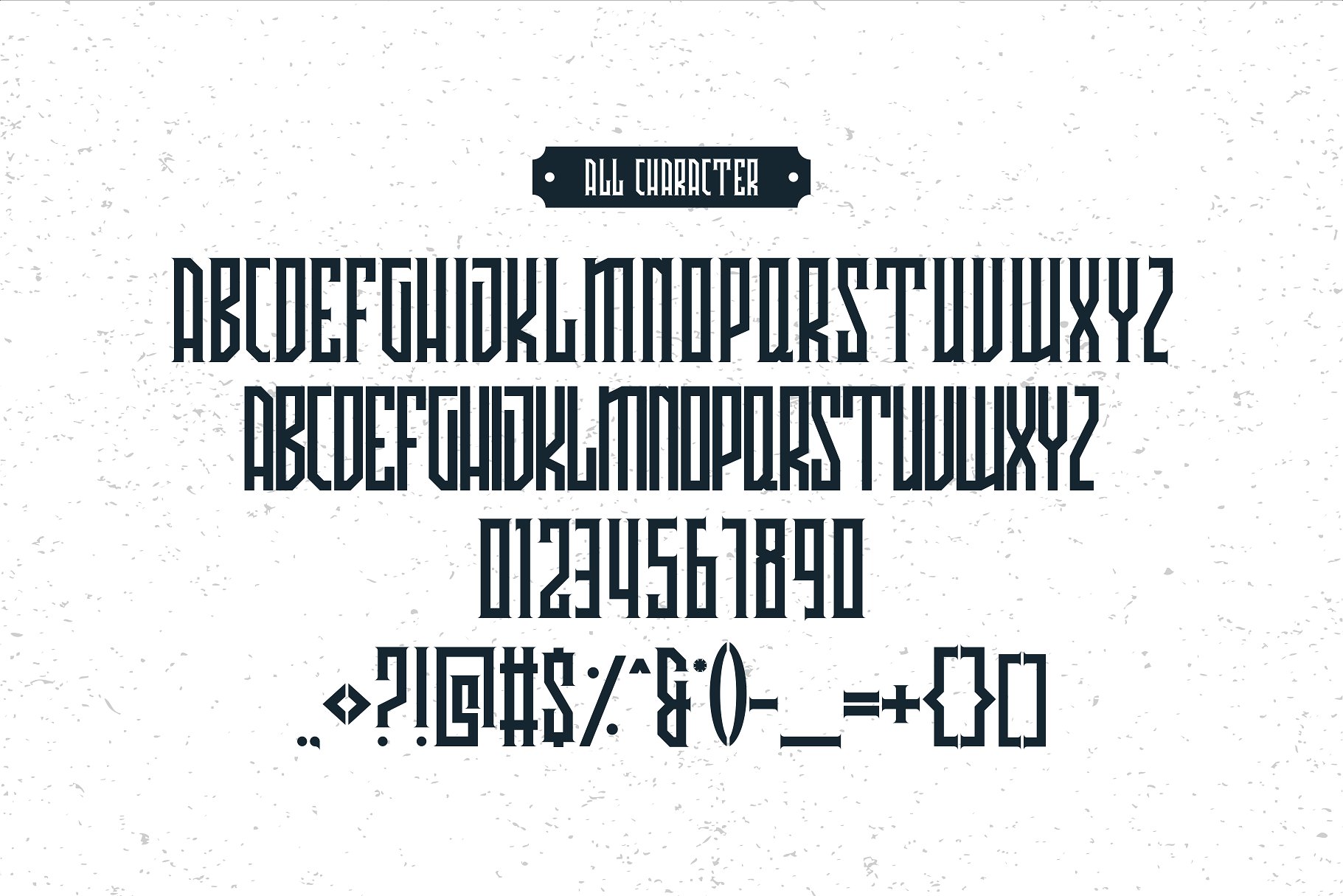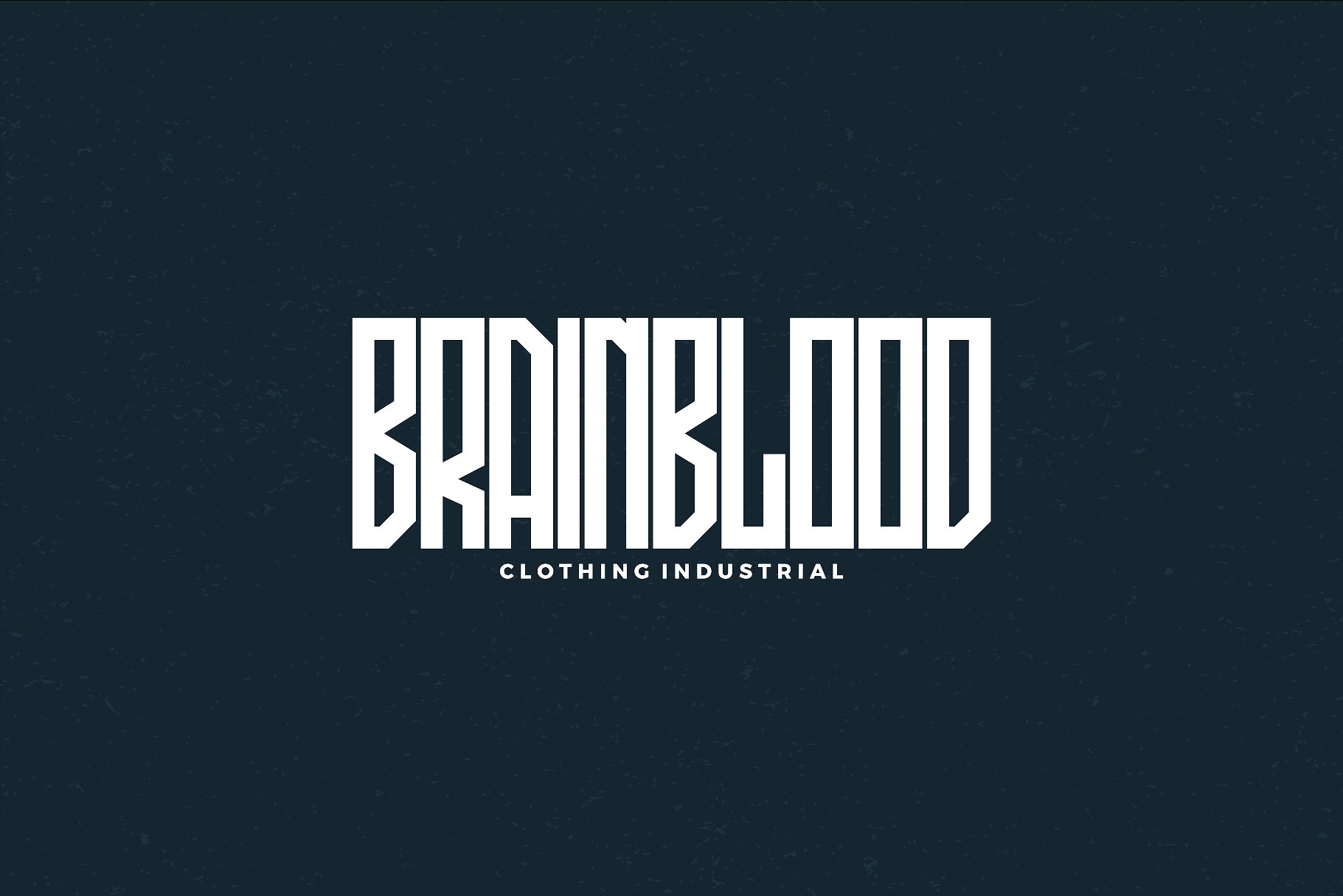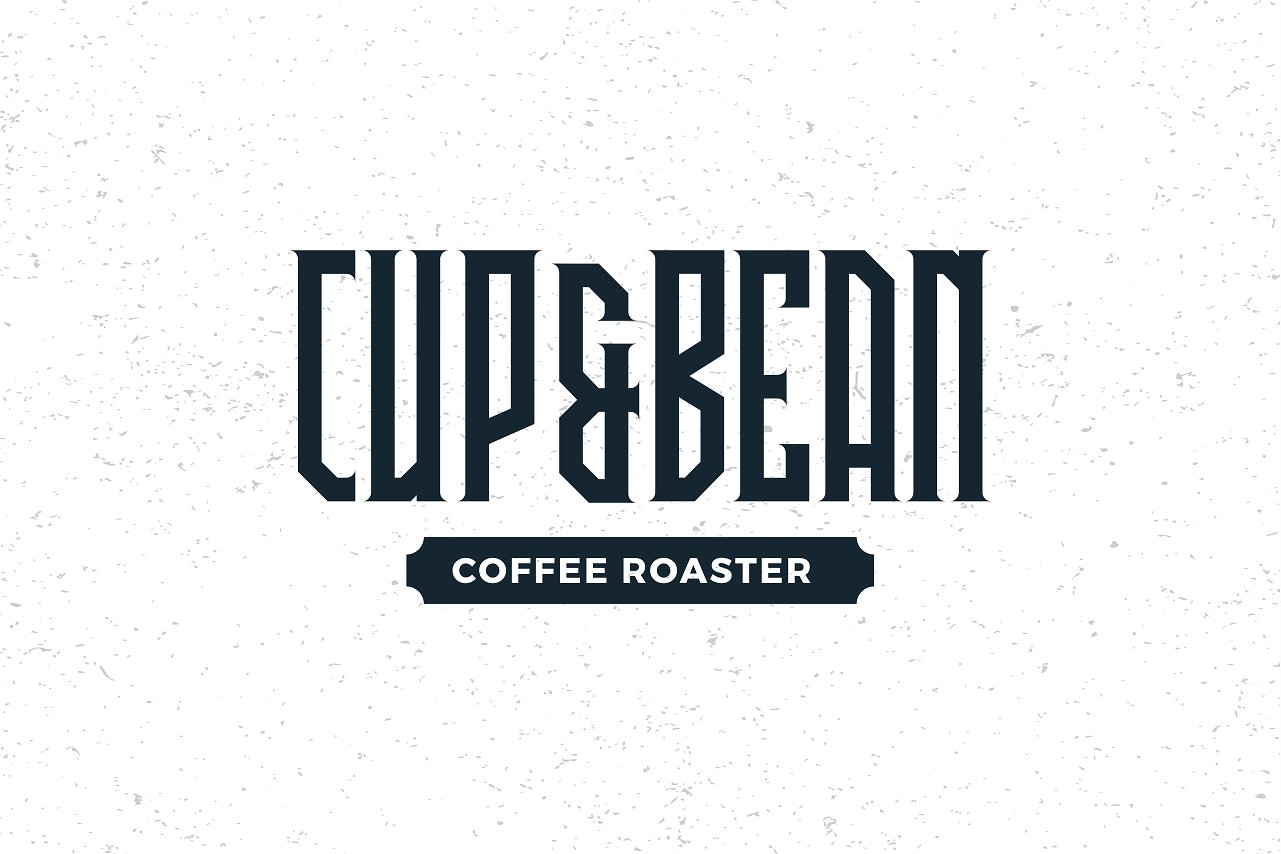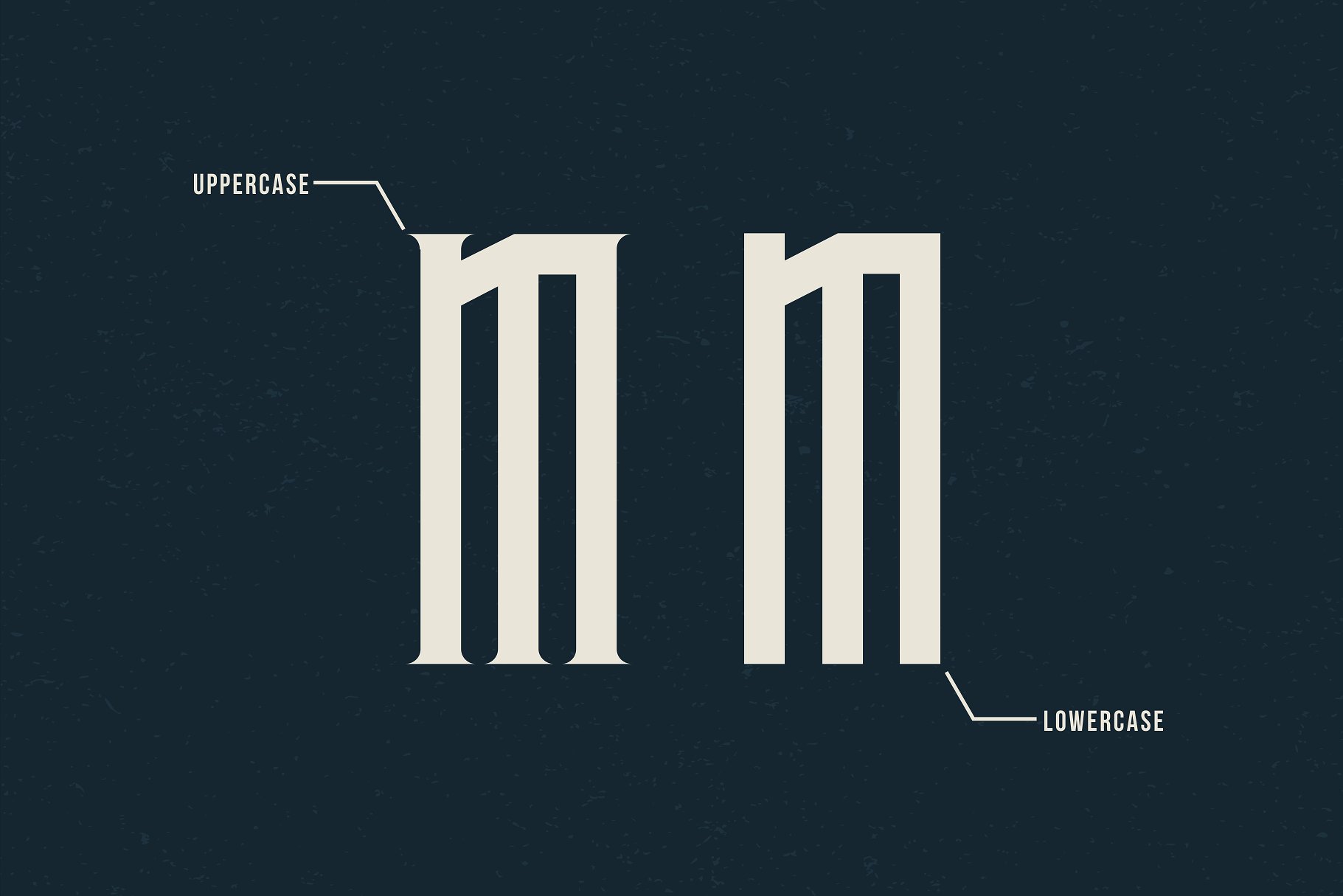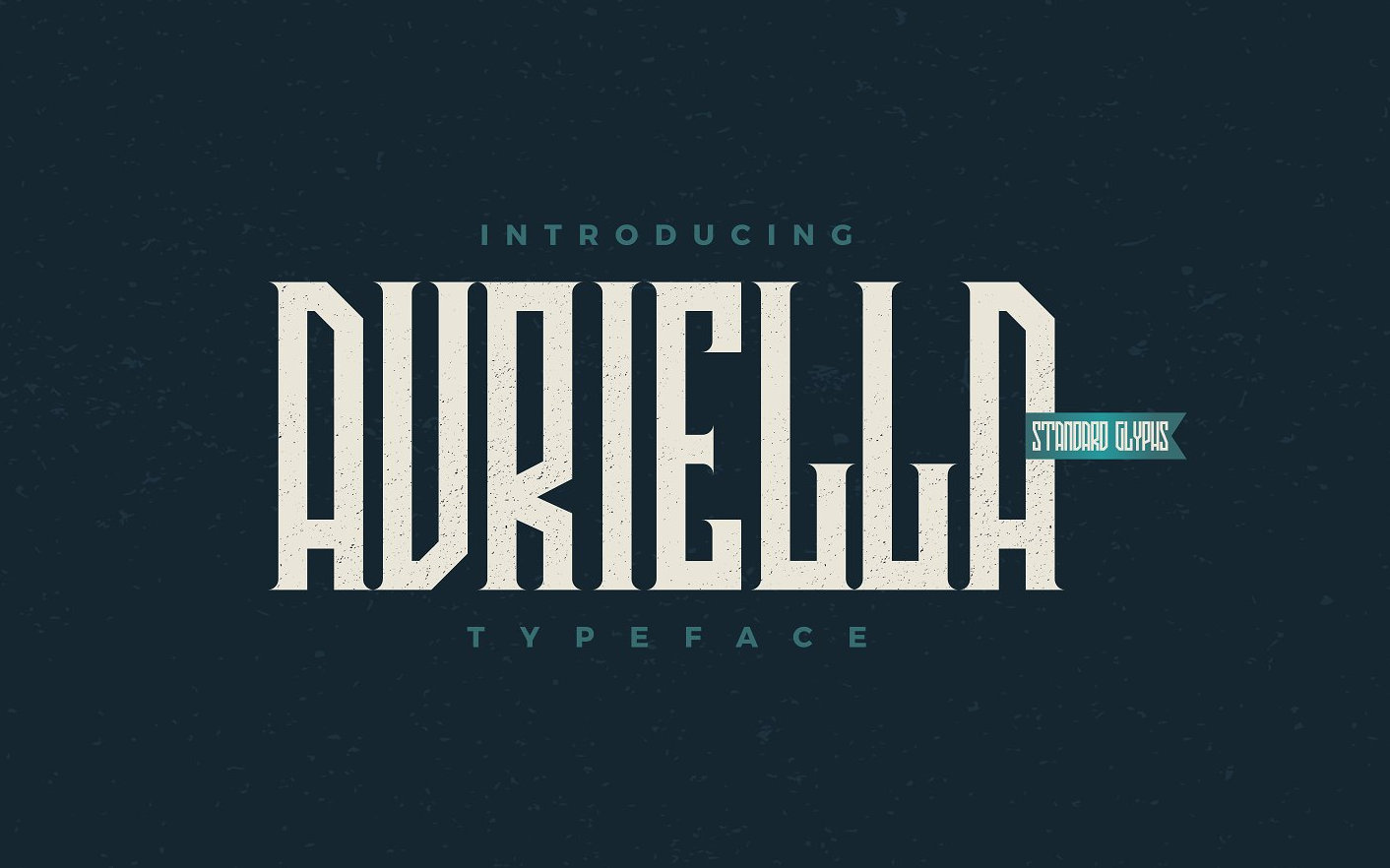
Avriella Typeface
In the process of designing a logo for the customer, and I found this typeface, it was perfect for my work. Introducing Avriella Font. It is designed and shared by 24Design Stds. AVRIELLA is display font typeface very suitable for any design needs : branding, logos, quotes, product packaging, merchandise, poster, modern advertising design, Art Quote, Home decor, Book/Cover Title, Invitation, special events, custom mug, pillow, t-shirts, etc.